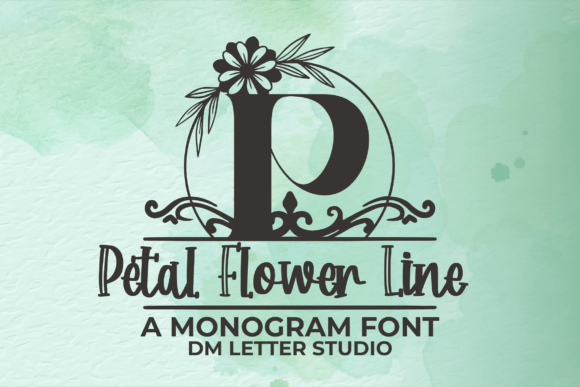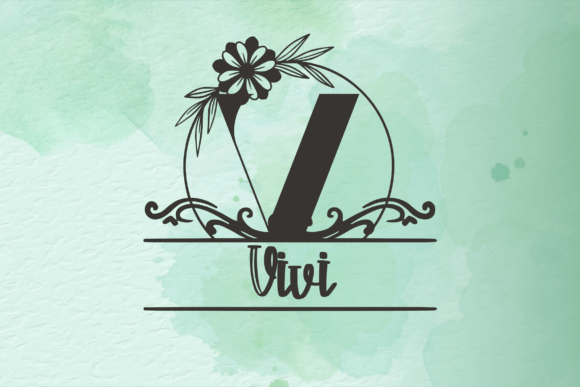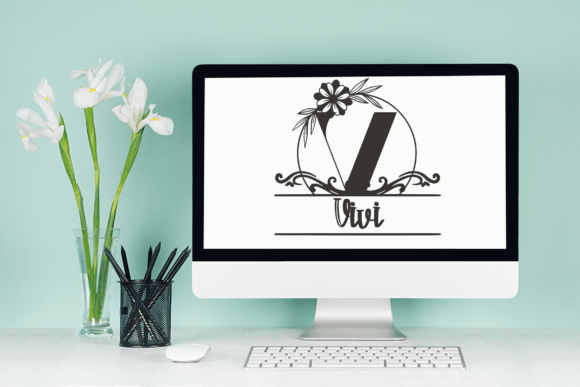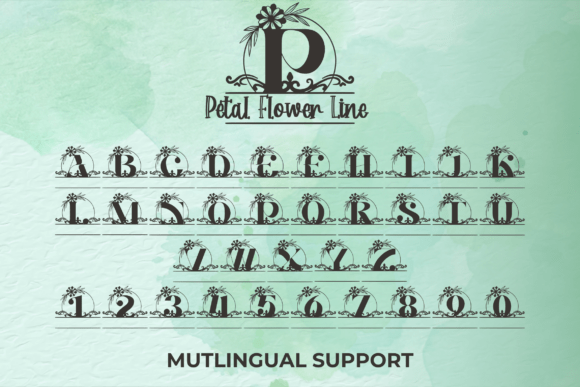
Petal Flower Line Monogram Font
About the Petal Flower Line Monogram Font
Discover the charm of Petal Flower Line Monogram Font. This font is a perfect blend of modern aesthetics and classic appeal. Petal Flower Line Monogram – Minimalist & Floral Line Monogram Font
Petal Flower Line Monogram is a refined monogram font that combines the elegance of botanical line art with a clean, minimalist monogram structure. Each letter is delicately decorated with linear floral motifs inspired by soft flower petals, making it perfect for modern weddings, boutique branding, feminine stationery, and seasonal projects that need a graceful, airy touch.
Features:
Elegant Floral Line Art: Features subtle, hand-drawn petal and vine details integrated into each monogram.
Minimalist Design: Clean, structured characters complemented by fine botanical lines for a modern aesthetic.
Ideal for Feminine & Nature Themes: Perfect for invitations, logos, wellness branding, and garden-inspired projects.
Petal Flower Line Monogram Font Usage Examples
Petal Flower Line Monogram Font Example